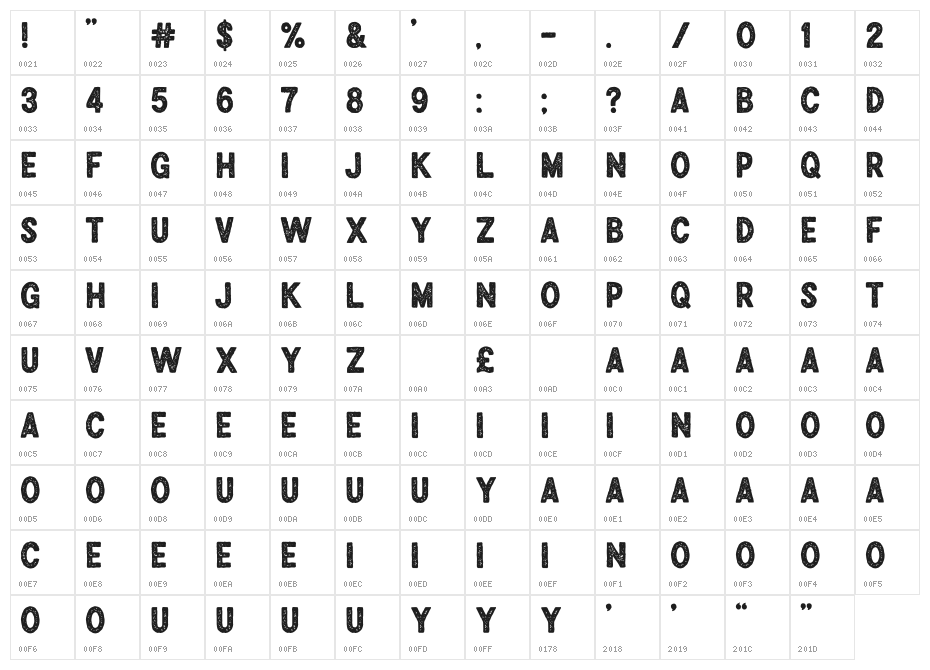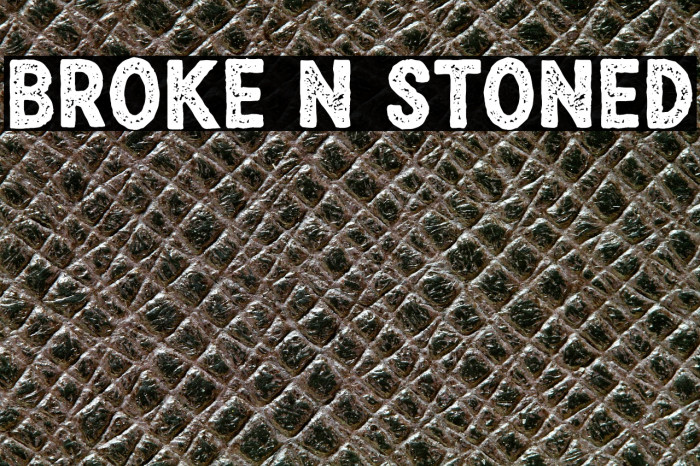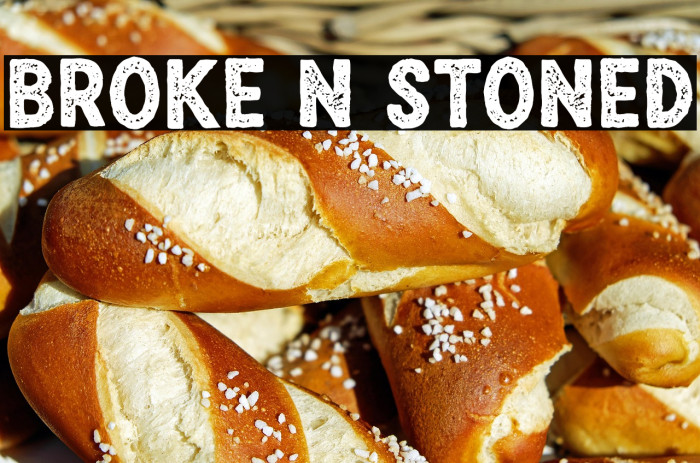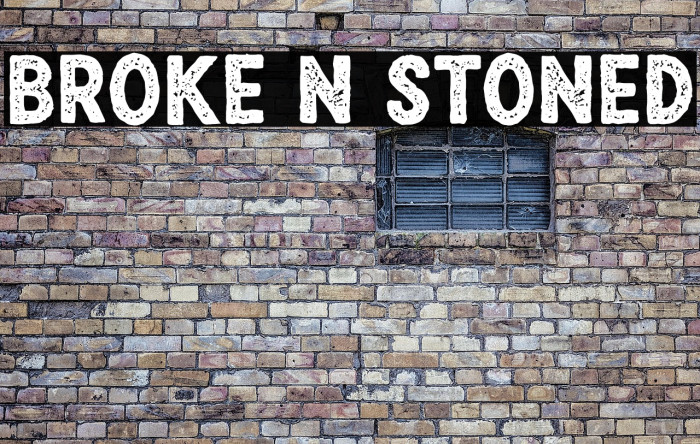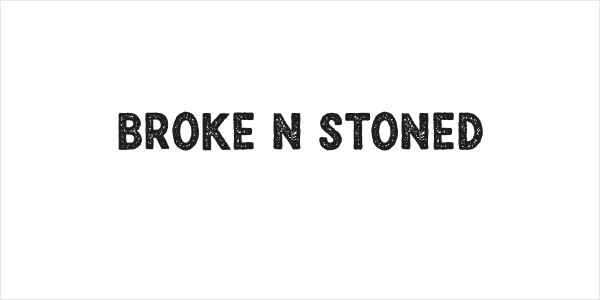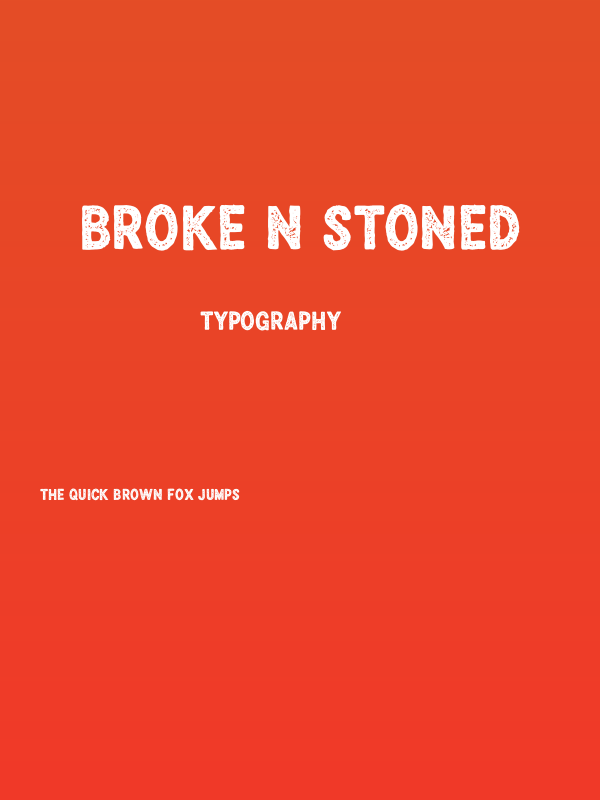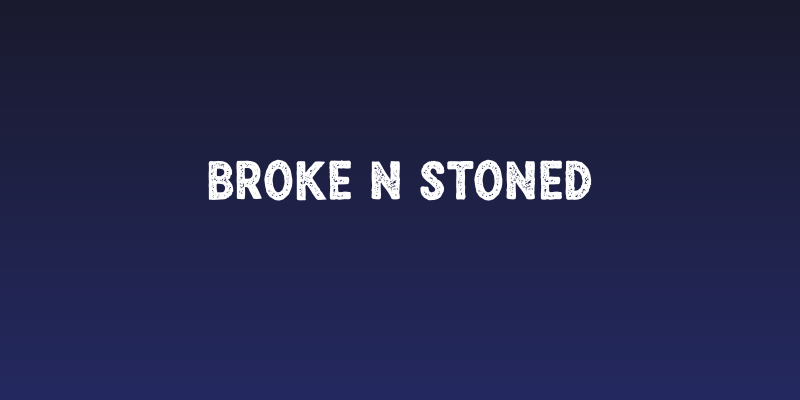
Broke N Stoned Font
Broke N Stoned Description
This font features a bold, distressed style with a textured, grunge appearance. The characters are thick and robust, giving off a rugged and edgy vibe. The texture within each letter adds a unique, worn-out look, making it ideal for designs that require a vintage or industrial feel. The uppercase and lowercase letters maintain a consistent weight, and the numbers and special characters are equally bold and textured, ensuring uniformity across all elements. The font's distinct style makes it stand out, perfect for projects that need a strong visual impact.
| Proposed Projects | Ideal for posters, album covers, branding for edgy products, and any design needing a vintage or industrial touch. |